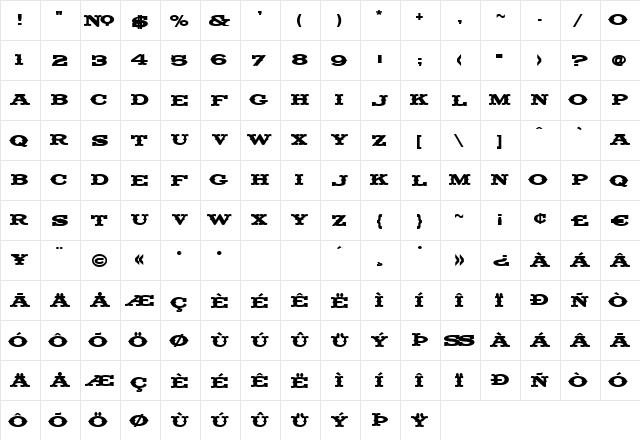
LHF Fancy Full Spurs BOLD Regular
Design Context for LHF Fancy Full Spurs BOLD Typeface
LHF Fancy Full Spurs BOLD is a composed and adaptable typeface that performs quietly and consistently across a wide range of design contexts. The heavy weight commands attention and anchors typographic hierarchies.